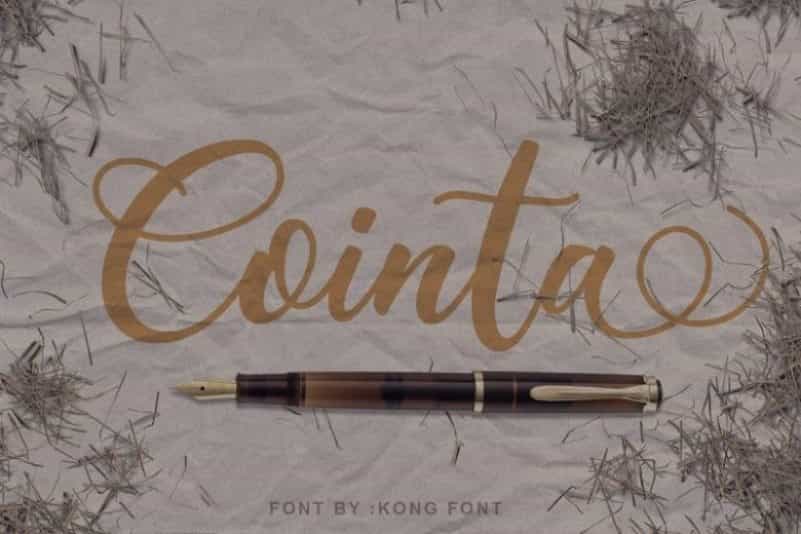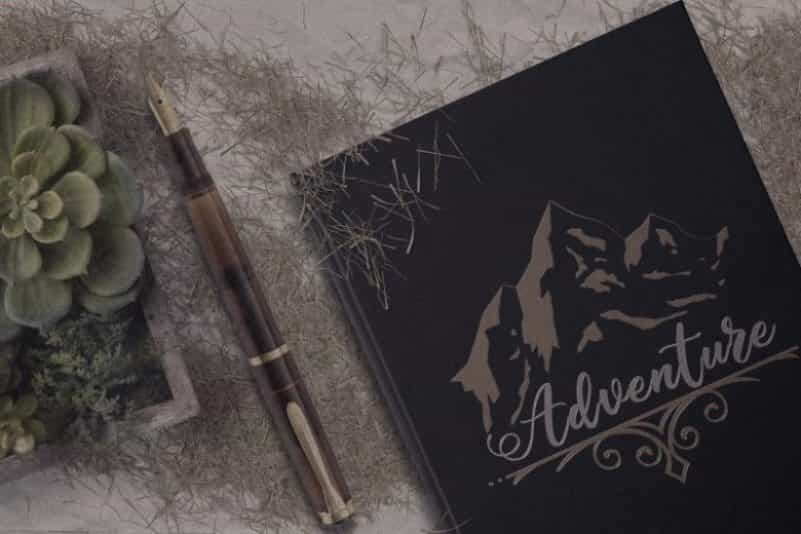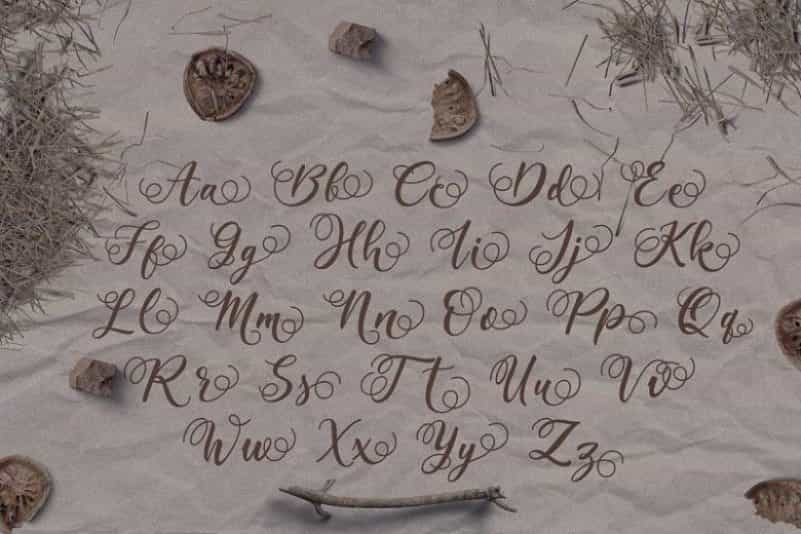
Cointa is a contemporary calligraphy font with the current handwriting style, this font will be ideal for branding, wedding invites, magazines, mugs, business cards , quotes and posters and many more things you want to use it on. You can try first if you want to buy this font.